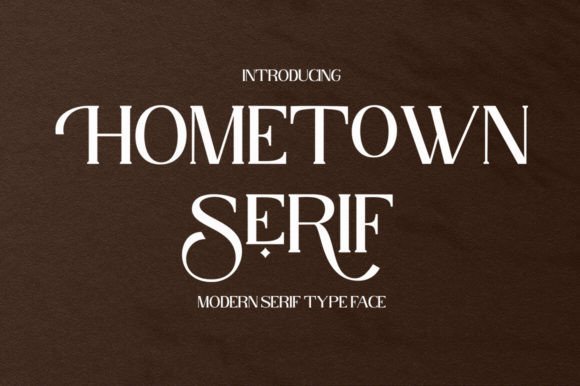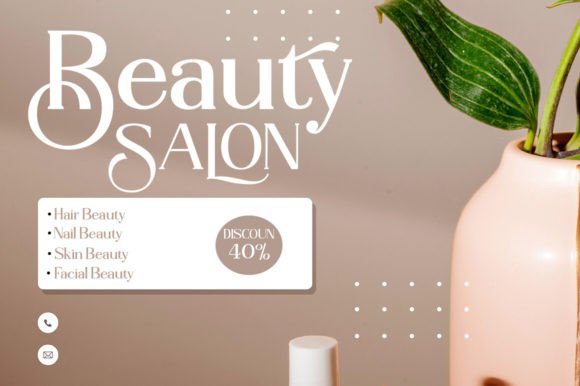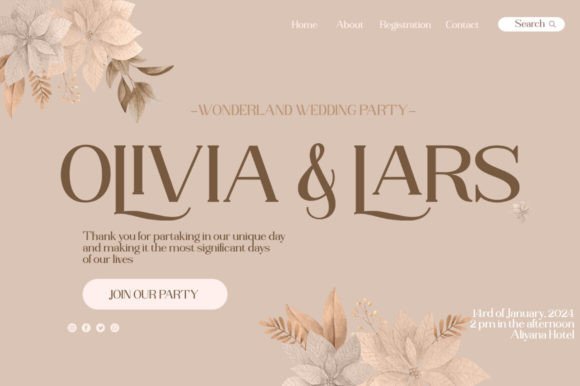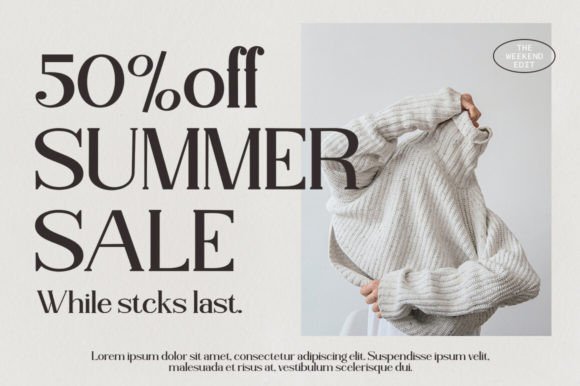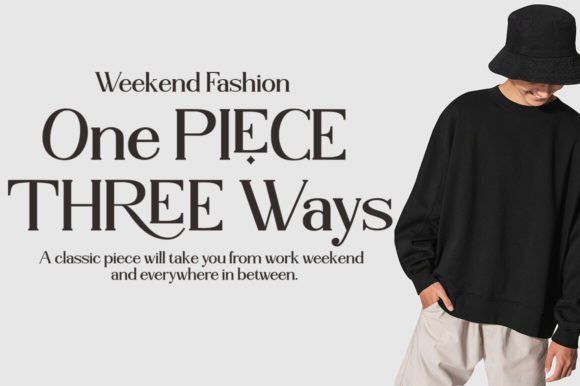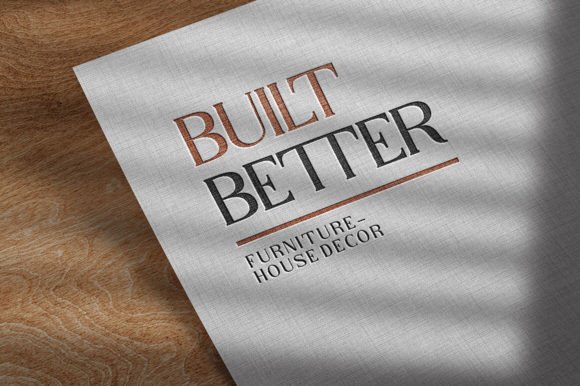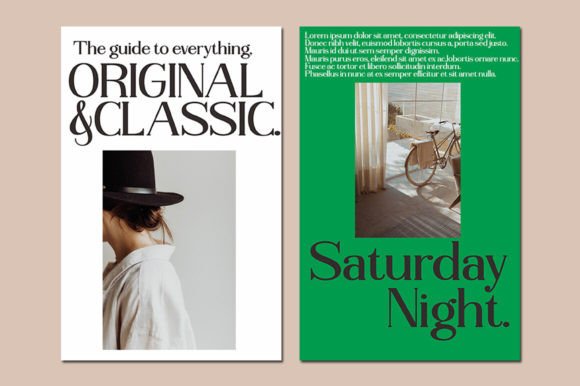
Discovering the Perfect Hometown: Where Design Meets Elegance
Have you ever sat in a quiet café, sipping coffee and staring at a beautifully designed invitation? The intricate details, the smooth curves, the elegant typography… it’s moments like these that spark our creativity and inspire us to create something truly special. For designers, finding the perfect font can be a game-changer, elevating our work from good to great.
Enter the Hometown Serif Font, a beautiful, modern serif font that embodies the essence of classic style. With its smooth, clean lines and unique character, this font is perfect for formal applications such as invitations, labels, and logos. But what truly sets Hometown Serif apart is its ease of use, thanks to its PUA encoding, which allows designers to access all of its amazing glyphs and ligatures with ease.
Hometown Serif Font Key Features
- Font Family: Hometown Serif, a serif font designed for body text and headings.
- Unique Characteristics: Features a warm, classic feel with subtle flair and contrast, making it suitable for a wide range of applications, from editorials to advertising.
- Language Support: Supports Latin-based languages, including English, Spanish, French, German, Italian, and many others.
Hometown Serif Font Review
I’ve had the chance to play around with the Hometown Serif Font, and here are my honest thoughts. ✨ First off, I love the nostalgic feel it brings to any design project. It’s a great choice for anything related to family, community, or traditional values. The font is clean, yet warm and inviting, making it perfect for headers, titles, and body text.
The font also has a nice range of weights and styles, from Light to Bold, making it versatile for different design applications. The ligatures and swashes add a touch of personality, but can be easily customized or turned off if needed.
⚠️ One thing I’ve noticed is that the font can be a bit challenging to read in small sizes. The letterforms are quite detailed, which can make them appear pixelated or fuzzy when scaled down. Additionally, the font doesn’t have a lot of international character support, which can be a limitation for projects that require multiple languages.
The Hometown Serif Font is a solid choice for anyone looking for a traditional, nostalgic feel. While it may have some limitations, its unique character and range of styles make it a great addition to any design project. Overall, I’d recommend it for headers, titles, and body text, but with caution when it comes to small sizes or international character support.
Tips for Getting the Most Out of Hometown Serif Font
1. Use Hometown Serif Font for body text to create a cohesive look.
2. Pair it with a sans-serif font for headings and titles.
3. Experiment with different font sizes and styles to add visual interest.
4. Use Hometown Serif Font for print materials, such as business cards and brochures.
Common Use Cases for Hometown Serif Font
1. Print materials, such as business cards and brochures.
2. Digital signage and displays.
3. Branding and marketing materials, such as logos and letterheads.
4. Educational materials, such as textbooks and course materials.
Alternatives to Hometown Serif Font for Designers
Playfair Display is an elegant and luxurious serif font that is ideal for use in high-end branding, advertising, and editorial design. It features intricate details and flourishes that add a touch of sophistication to any design. Playfair Display is a good alternative to Hometown Serif Font when you need to convey a sense of luxury and refinement.
Compared to Hometown Serif Font, Playfair Display has a more ornate and elaborate feel, making it better suited for use in situations where you want to create a sense of grandeur or opulence.